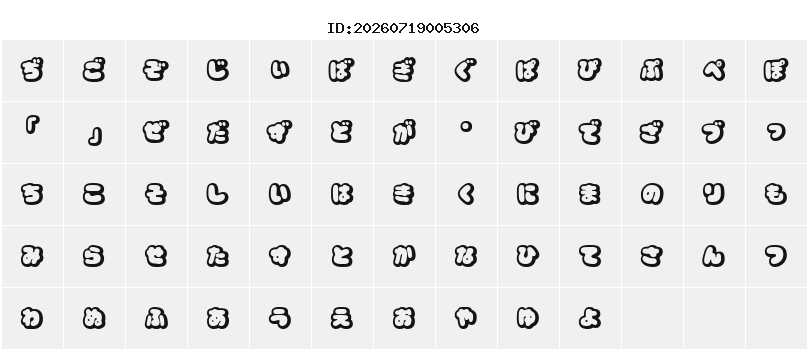
CoppepanCreamHr Preview
• Font Name: CoppepanCreamHr
• Font ID: Macromedia Fontographer 4.1J CoppepanCreamHr
• Full Font Name: CoppepanCreamHr
• Version: Macromedia Fontographer 4.1J 05.12.23
• PostScript Name: CoppepanCreamHr
• Character Count: 106
About CoppepanCreamHr.ttf
CoppepanCreamHr.ttf is a modern, elegant sans-serif font designed for ultimate readability and visual harmony. Perfect for branding, headlines, web design, and print materials.